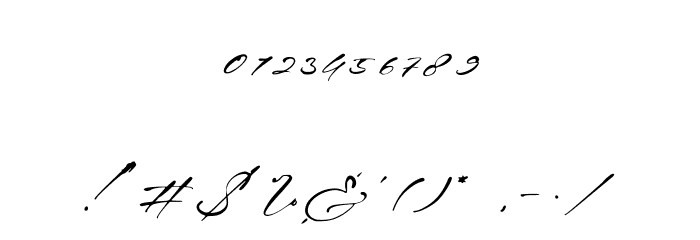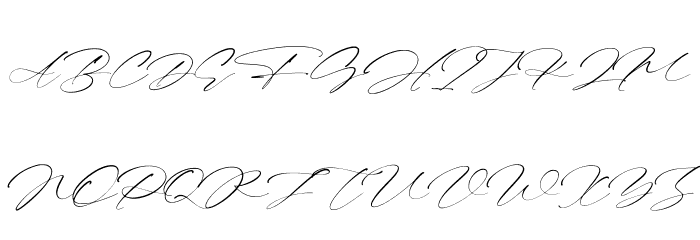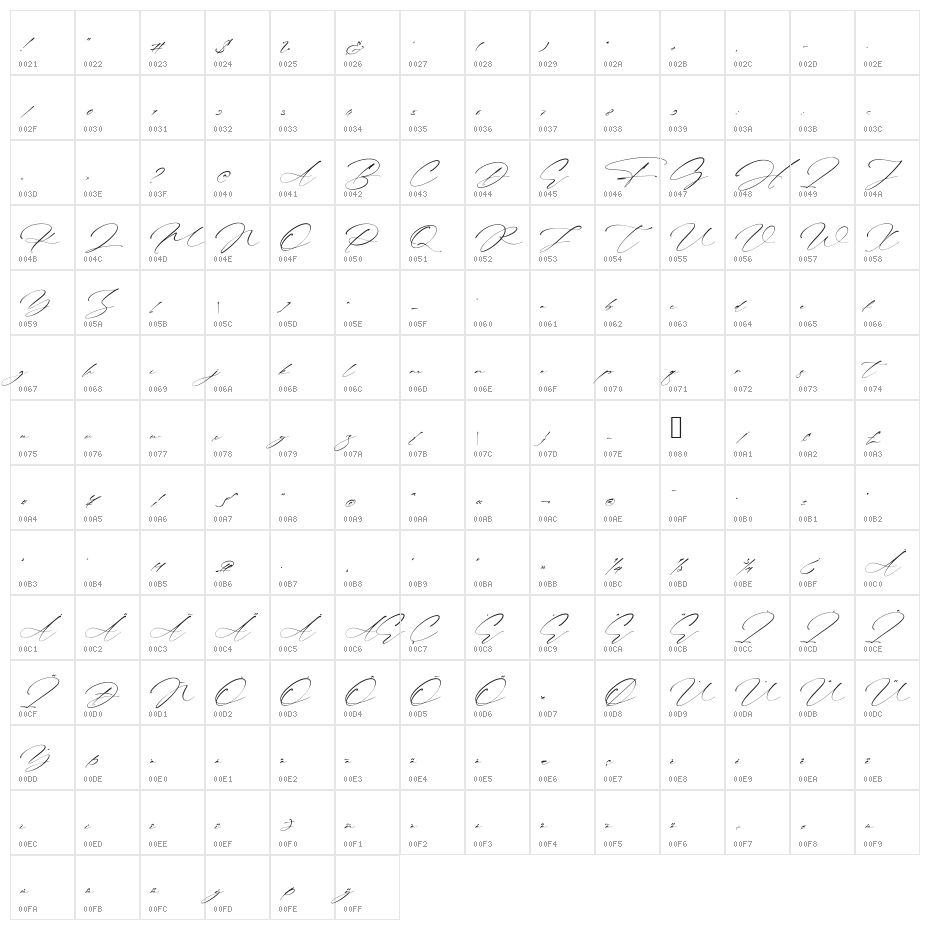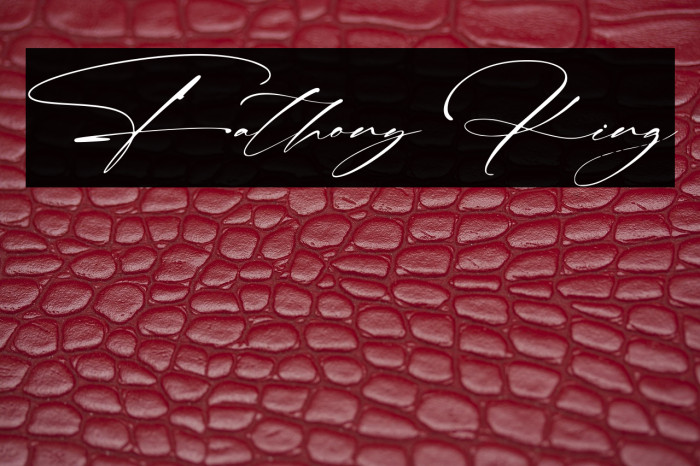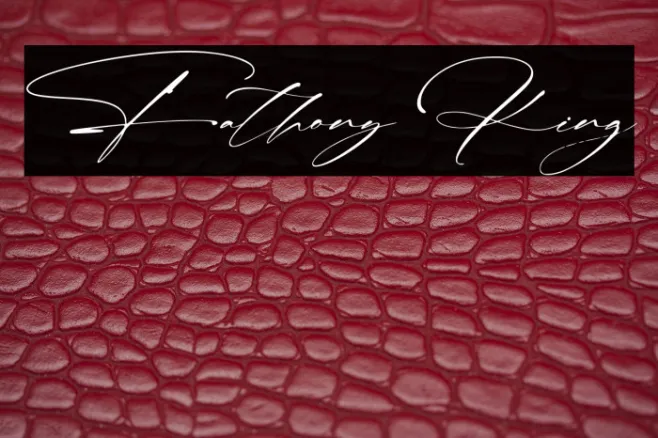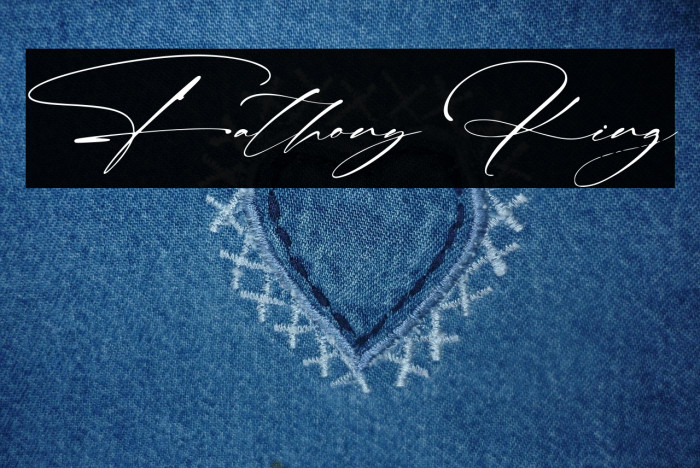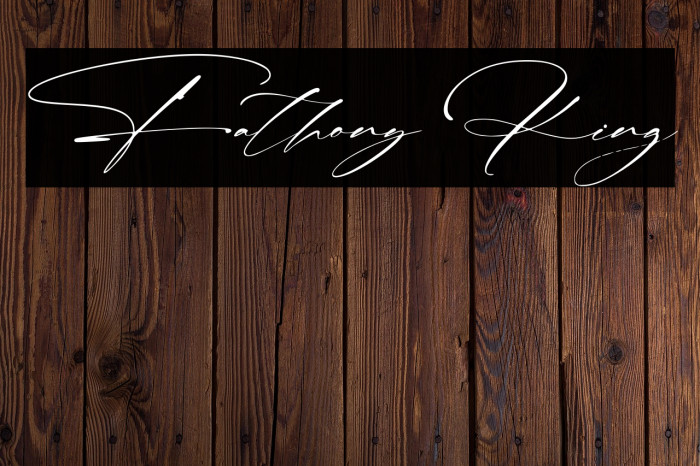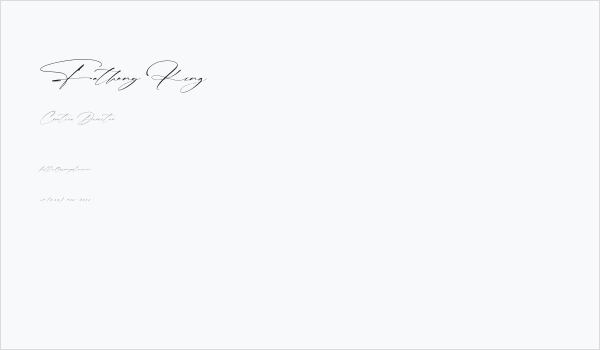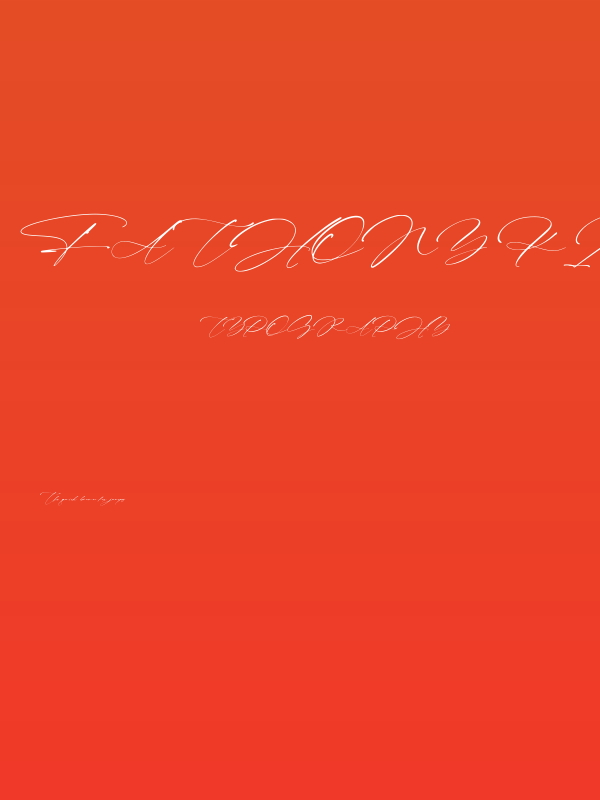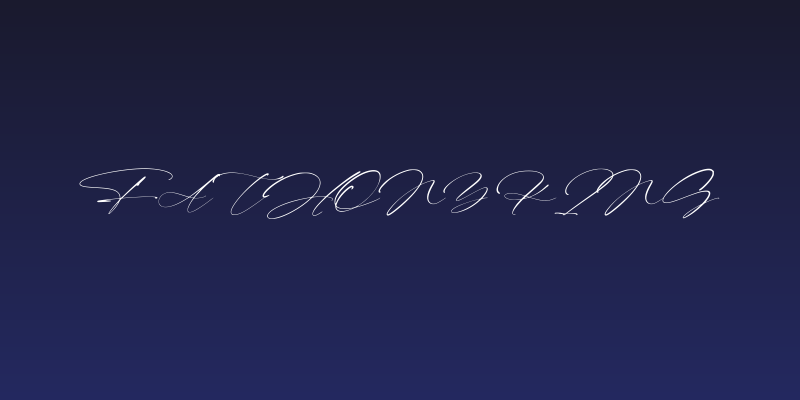
Fathony King Font
Fathony King Description
This elegant script font features flowing, interconnected letters that exude sophistication and grace. The uppercase letters are particularly ornate, with sweeping curves and loops that add a touch of luxury. The lowercase letters maintain a consistent style, offering a harmonious balance between readability and decorative flair. The numerals and special characters are designed to complement the overall aesthetic, ensuring a cohesive look across all text elements. This font is perfect for projects that require a personal, handwritten touch, while still maintaining a sense of formality and refinement.
| Use Case | Logos, Invitations, Headlines |
| Proposed Projects | Ideal for wedding invitations, luxury branding, personal stationery, and elegant event signage. |